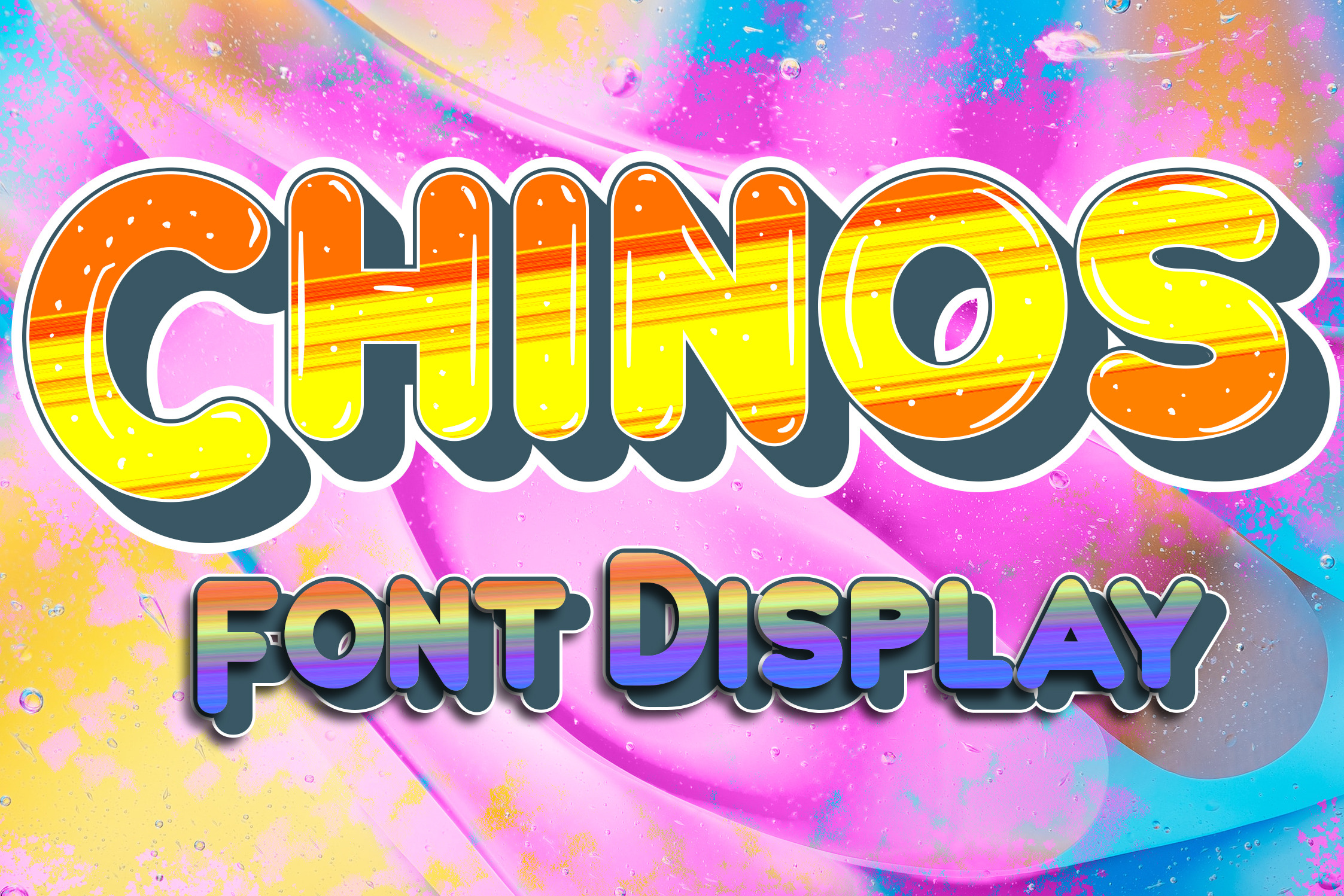
Chinos - Display Font
Chinos is a simple and modern display font. includes five versions of each letter which can be used separately or on top of each other to achieve a different look. suitable for quotes, logos, headings, titles, and many more. Use it on any of your creative projects, and your designs will become outstanding.